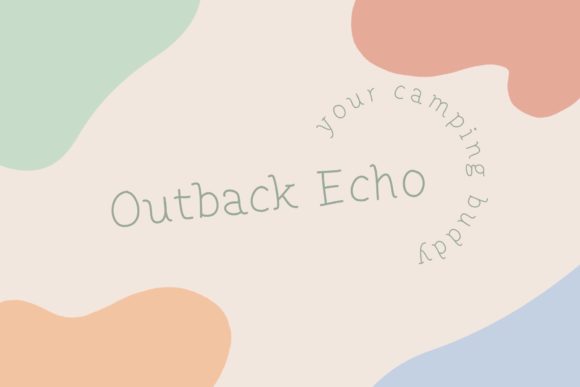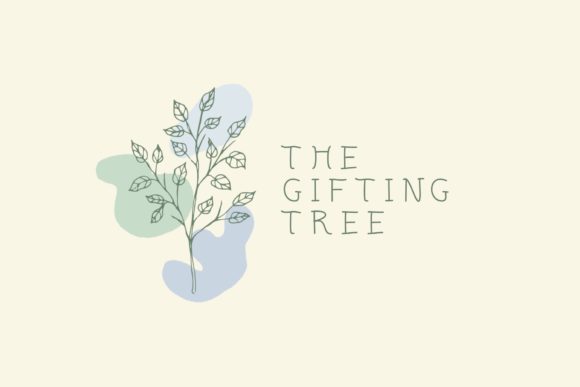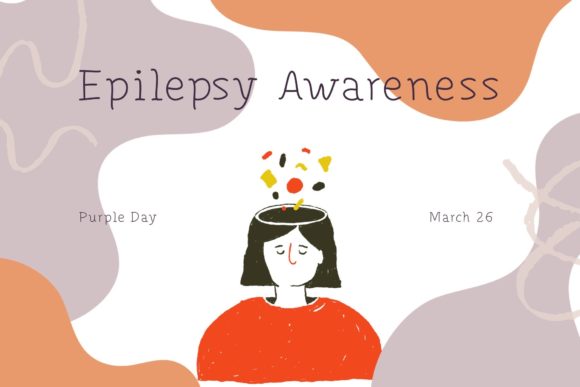
Emerson Font
About Emerson Font
“Emerson” is described as a sweet and friendly handwritten font with a natural and unique style. The font is presented as incredibly fitting to a wide range of designs, with the only limit being the designer’s imagination.
The emphasis on “Emerson’s” natural and unique style suggests a font that carries a distinct and individualized aesthetic. This positioning makes it versatile, allowing it to seamlessly adapt to various design projects and contexts.
The encouragement that the only limit is one’s imagination reinforces the idea that “Emerson” is a font that offers creative freedom and flexibility. It suggests that designers can use this font to bring their unique ideas to life, making it a valuable tool for those seeking a handwritten typeface with a friendly and adaptable character.
In summary, “Emerson” is presented as a sweet and friendly handwritten font that encourages creativity and versatility. With its natural and unique style, it is positioned as a font that can complement a diverse array of designs, providing designers with the freedom to explore and express their imagination in their creative projects.